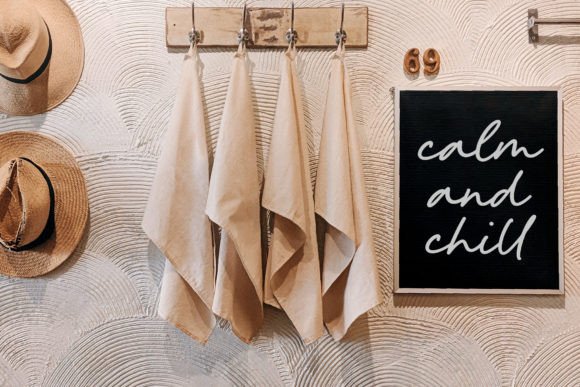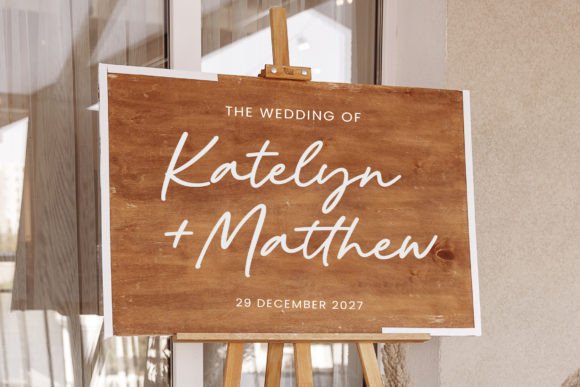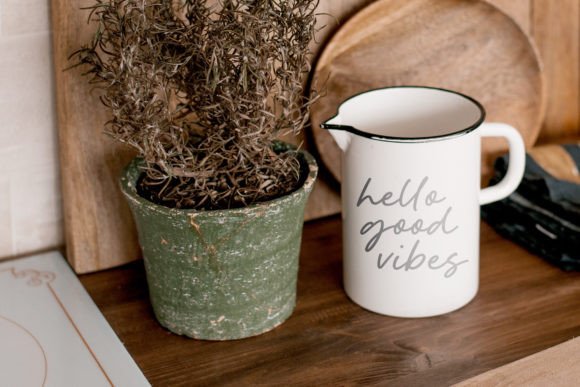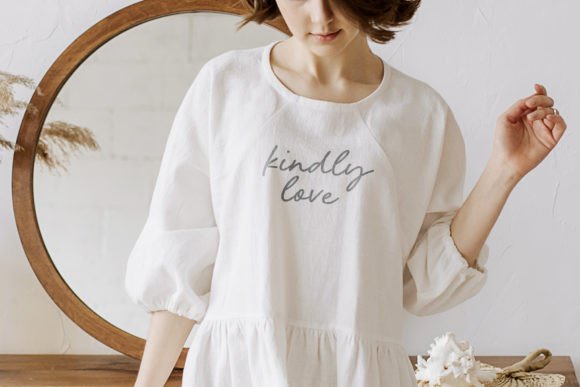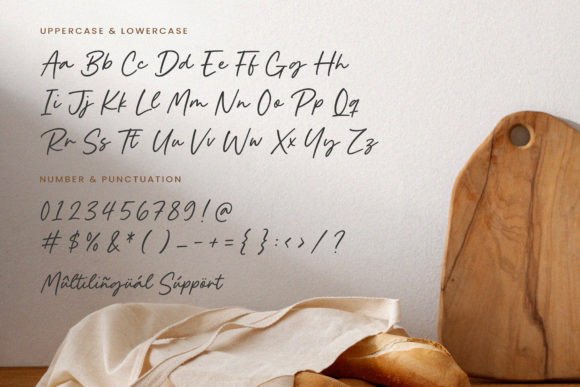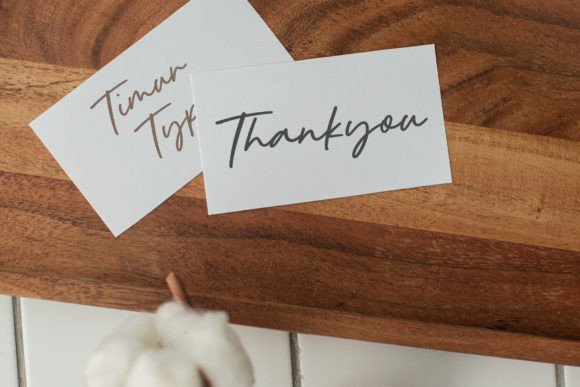
Introduction to Roasted Bailey Font
There’s nothing quite like the rush of creative energy that comes with designing a new project. You’re pouring over your ideas, tweaking every detail, and bringing your vision to life. And then, it hits you – the perfect font. The one that elevates your design from good to great. For many designers, that font is the Roasted Bailey Font.
Masterfully crafted to blend timeless calligraphy with a fresh, contemporary feel, the Roasted Bailey Font is a design treasure trove waiting to be unlocked. Whether you’re working on a high-end brand identity or a creative project that requires a touch of elegance, this font is sure to become your go-to resource. And the best part? It’s available for free download, making it a valuable addition to any designer’s toolkit.
With its high-quality design and transparent background, the Roasted Bailey Font is the perfect complement to any project. So why settle for a bland, generic font when you can have a true design icon at your fingertips? Discover the magic of the Roasted Bailey Font and take your creative projects to the next level.
Key Features of Roasted Bailey Font
- Unique, bold design with a transparent background, perfect for adding a touch of sophistication to your designs.
- Features a large character set, including uppercase and lowercase letters, numbers, and special characters.
- Includes a comprehensive font package with various font weights and styles, allowing for maximum flexibility in your design projects.
Honest Review: Roasted Bailey Font
I recently stumbled upon the Roasted Bailey Font, and I must say it’s a great addition to any design project. The font is free to download, which is always a plus for designers on a budget. One of the standout features is its high quality and versatility, making it suitable for a wide range of creative projects.
Here are some of the things that work well for the Roasted Bailey Font:
- ✨ High-quality design that’s perfect for headings and titles
- ✨ Great for creating a vintage or distressed look
- ✨ Transparent background, making it easy to customize and use with other design elements
- ⚠️ The font may not be suitable for smaller text sizes, as it can become difficult to read
- ⚠️ Limited customization options, which may limit its use in more complex design projects
Overall, I’m impressed with the Roasted Bailey Font. While it may have some limitations, its high quality and versatility make it a valuable design resource. With a little creativity, it can add a unique touch to any creative project.
The Roasted Bailey Font is a high-quality, free download design resource ideal for various creative projects. Its transparent background makes it easily editable and versatile.
Experiment with different font sizes, colors, and styles to create unique and eye-catching designs. Use the font in combination with other design elements, such as images and graphics, to add depth and visual interest.
The Roasted Bailey Font is suitable for a wide range of creative projects, including logos, business cards, brochures, and social media graphics. Its versatility and high-quality design make it an excellent addition to any design resource library.